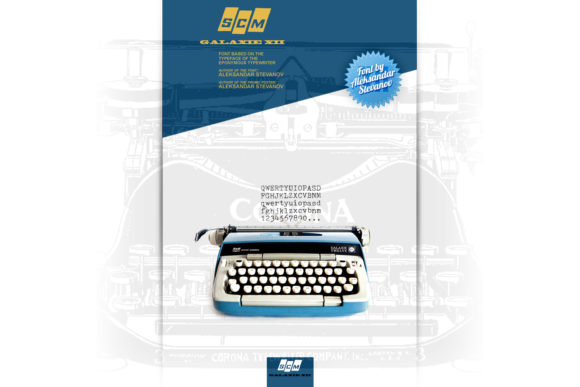
SCM Galaxie XII Font
SCM Galaxie XII: A Classic Typewriter Slab Serif Font
SCM Galaxie XII is a typewriter-inspired slab serif font that captures the essence of vintage typewritten documents. This font brings a touch of nostalgia and authenticity to designs, perfect for projects that aim to evoke a sense of mid-20th century charm.
Key Features of SCM Galaxie XII
• Typewriter Aesthetic: Accurately mimics the look of text produced by SCM (Smith-Corona-Marchant) Galaxie XII typewriters
• Slab Serif Design: Features the characteristic thick, rectangular serifs typical of typewriter fonts
• Monospaced Characters: Each character occupies the same amount of horizontal space, just like on a real typewriter
• Vintage Appeal: Perfect for designs that need an authentic typewritten look
Ideal Uses for SCM Galaxie XII
This font is particularly well-suited for:
• Retro-themed branding and packaging
• Vintage-inspired poster and advertisement designs
• Book covers or movie titles for period pieces
• Editorial layouts aiming for a nostalgic typewritten feel
• Recreating authentic-looking typewritten documents for film or theater props
Comparison with Other Slab Serif Fonts
While SCM Galaxie XII shares characteristics with other typewriter-inspired fonts like Smith-Corona EC1100 Prestige, it stands out for its specific connection to the SCM Galaxie XII typewriter model. Unlike more modern slab serifs such as Tecnica Slab Family, SCM Galaxie XII offers a distinctly vintage feel that’s closely tied to mid-20th century office technology.
When incorporating SCM Galaxie XII into your designs, consider the following tips:
• Use for body text to create an authentic typewritten document look
• Pair with handwritten or script fonts for a personal touch in correspondence-style designs
• Consider using it in projects related to journalism, literature, or historical themes
• Experiment with different sizes to mimic the look of various typewriter models and settings
SCM Galaxie XII is an excellent choice for designers looking to add an authentic typewriter feel to their work. Its faithful recreation of the SCM Galaxie XII typewriter output makes it stand out in the world of digital typography. Whether you’re working on vintage-inspired designs, creating period-accurate props, or simply want to add a touch of nostalgia to your projects, SCM Galaxie XII offers the perfect blend of authenticity and readability.
Explore how SCM Galaxie XII can bring the charm of mid-20th century typewriters to your design projects. From retro branding to historical recreations, this font provides the tools to create impactful and authentic typewriter-style typography.